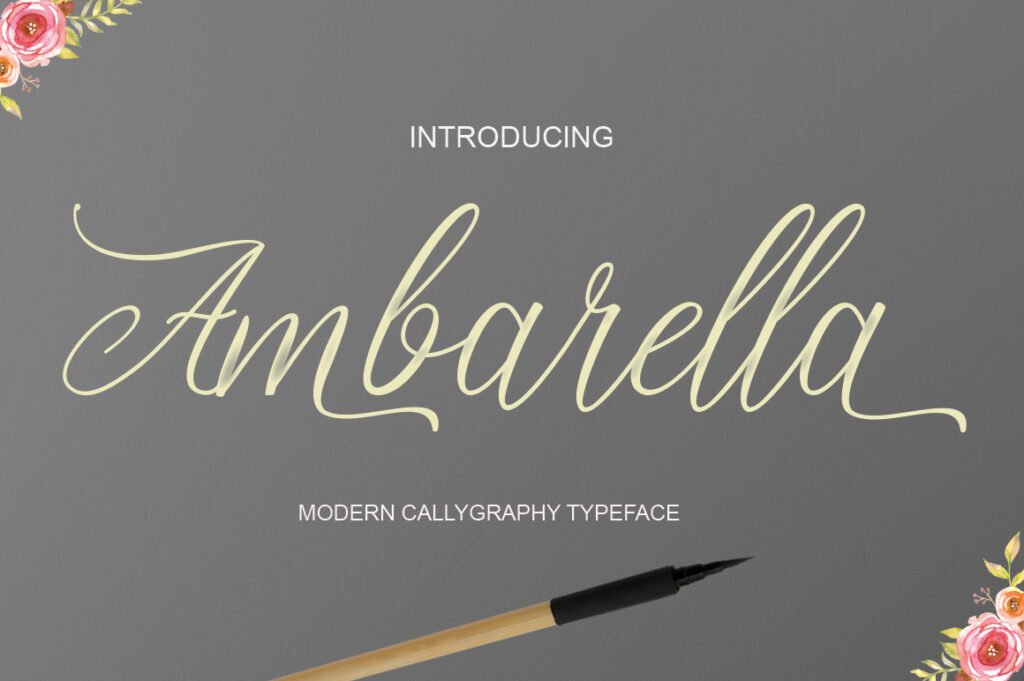
Ambarella Font
Introduction to Ambarella a beautiful modern calligraphy typeface created by Polem Studio. Ambarella is available for free exclusively on Pixel Surplus. It includes various swashes, alternates and Western European characters.